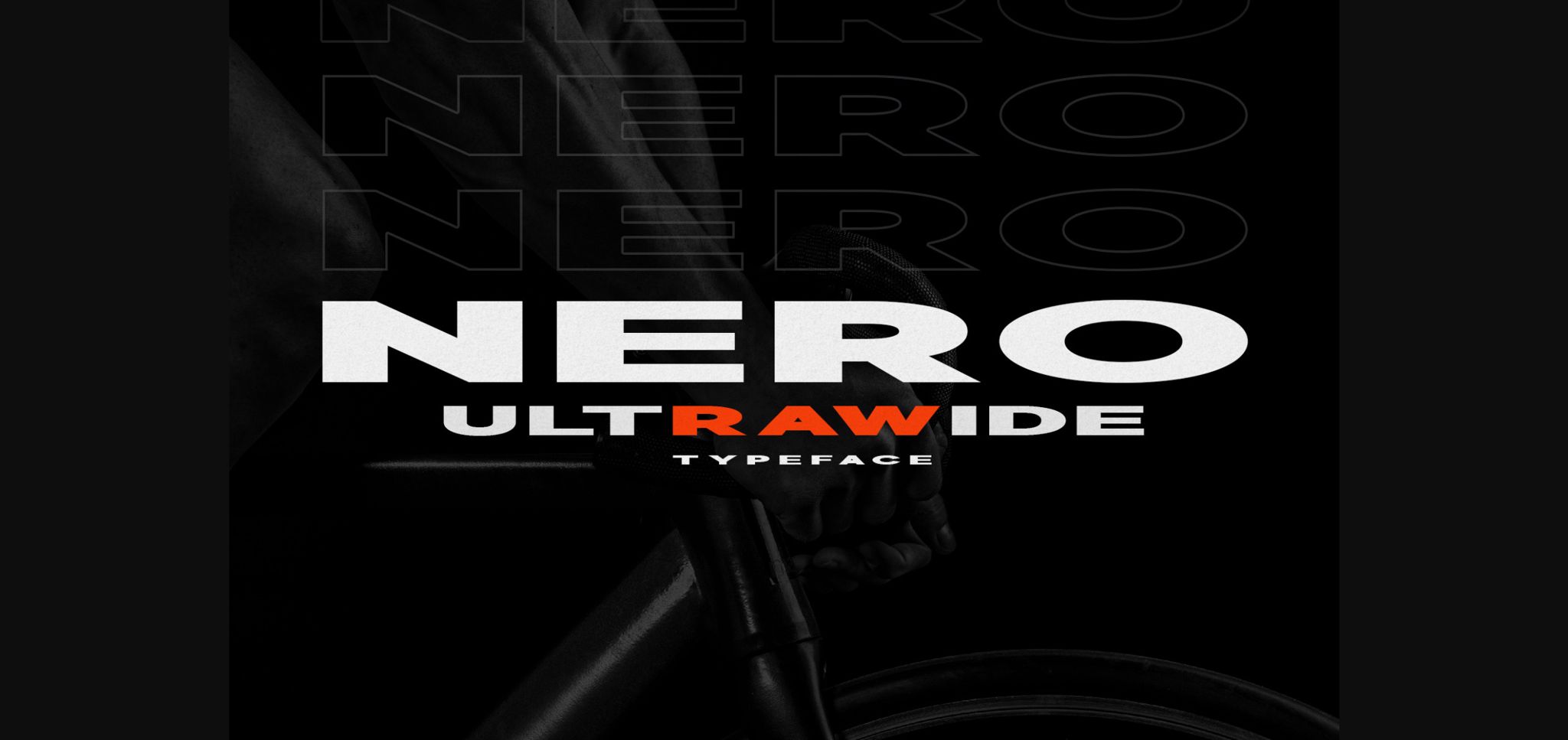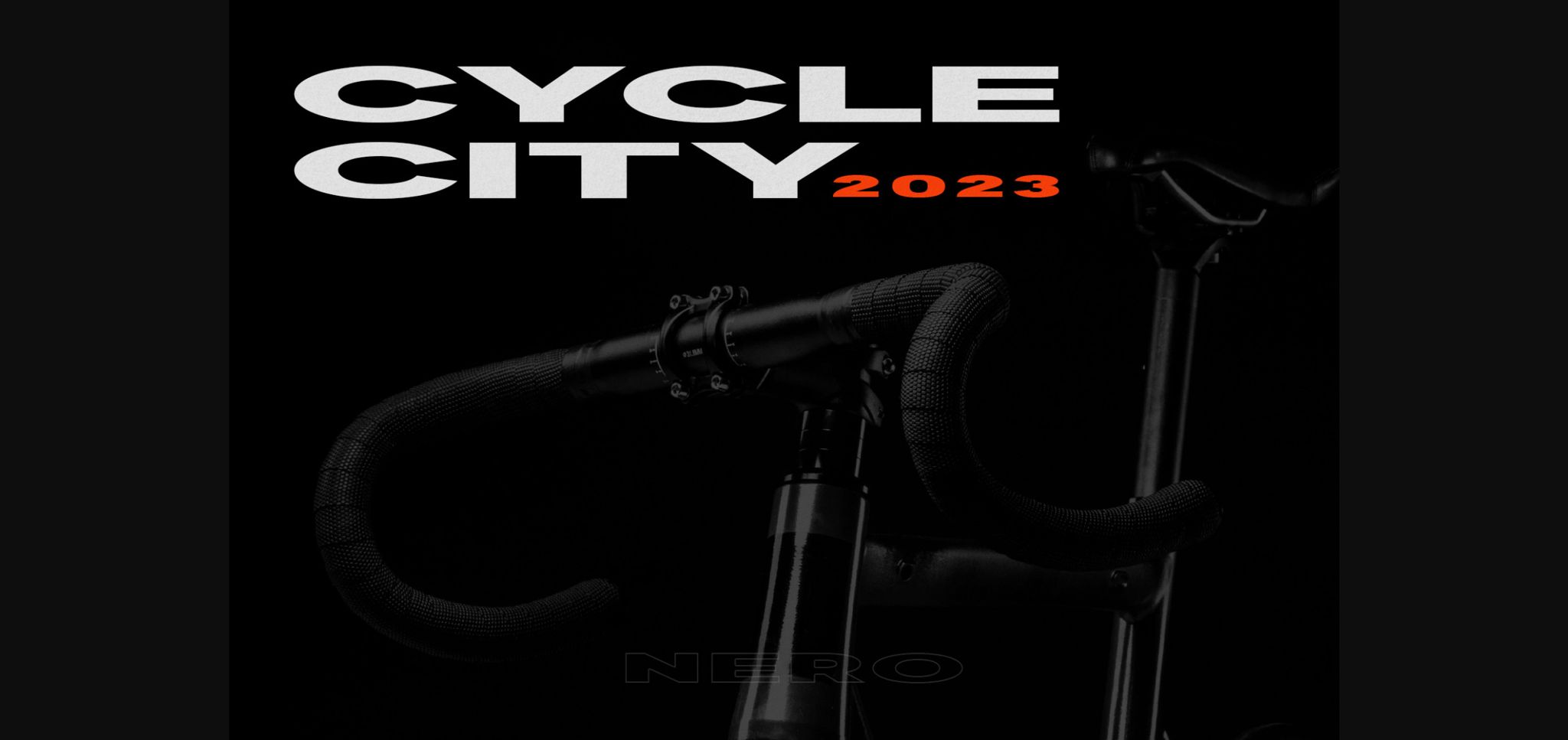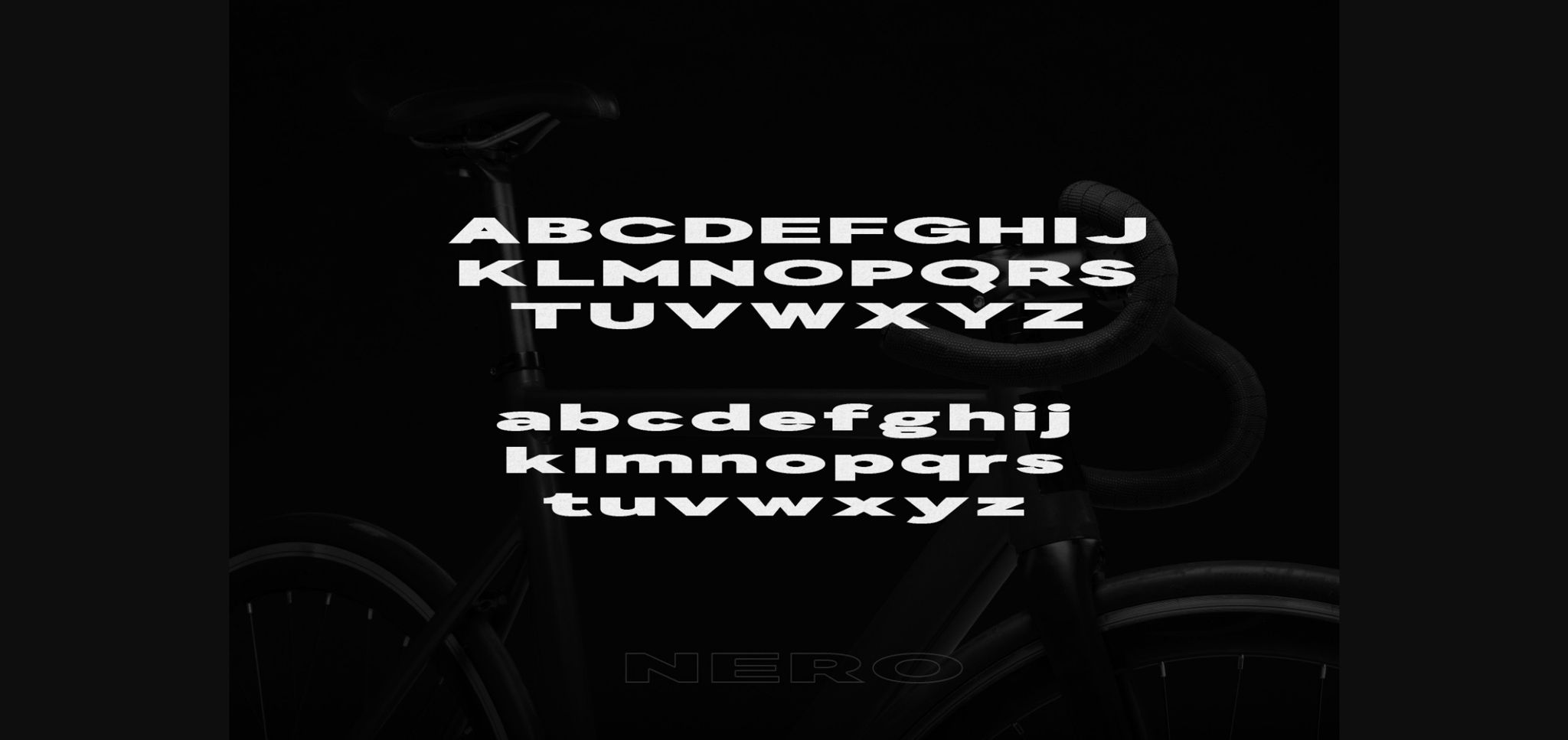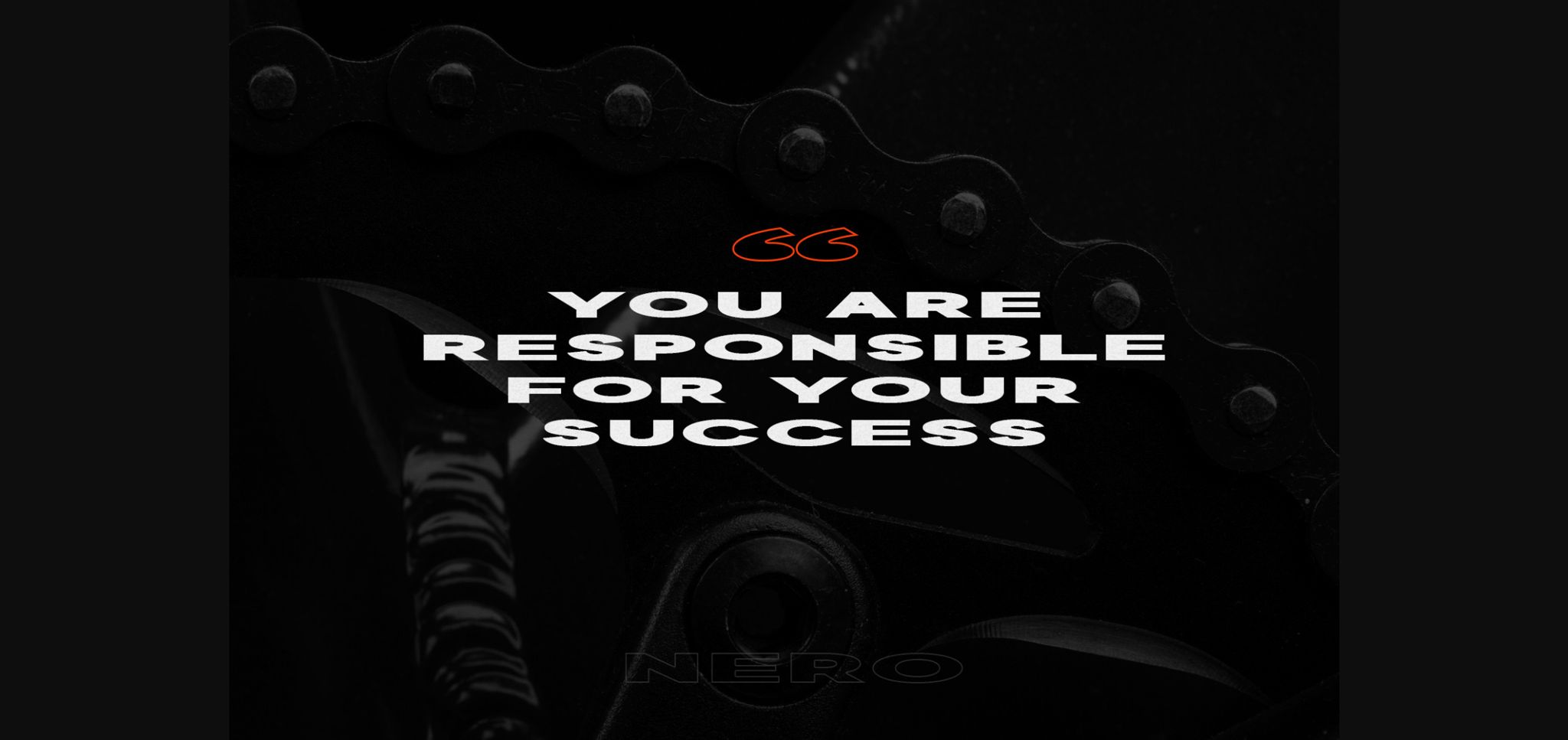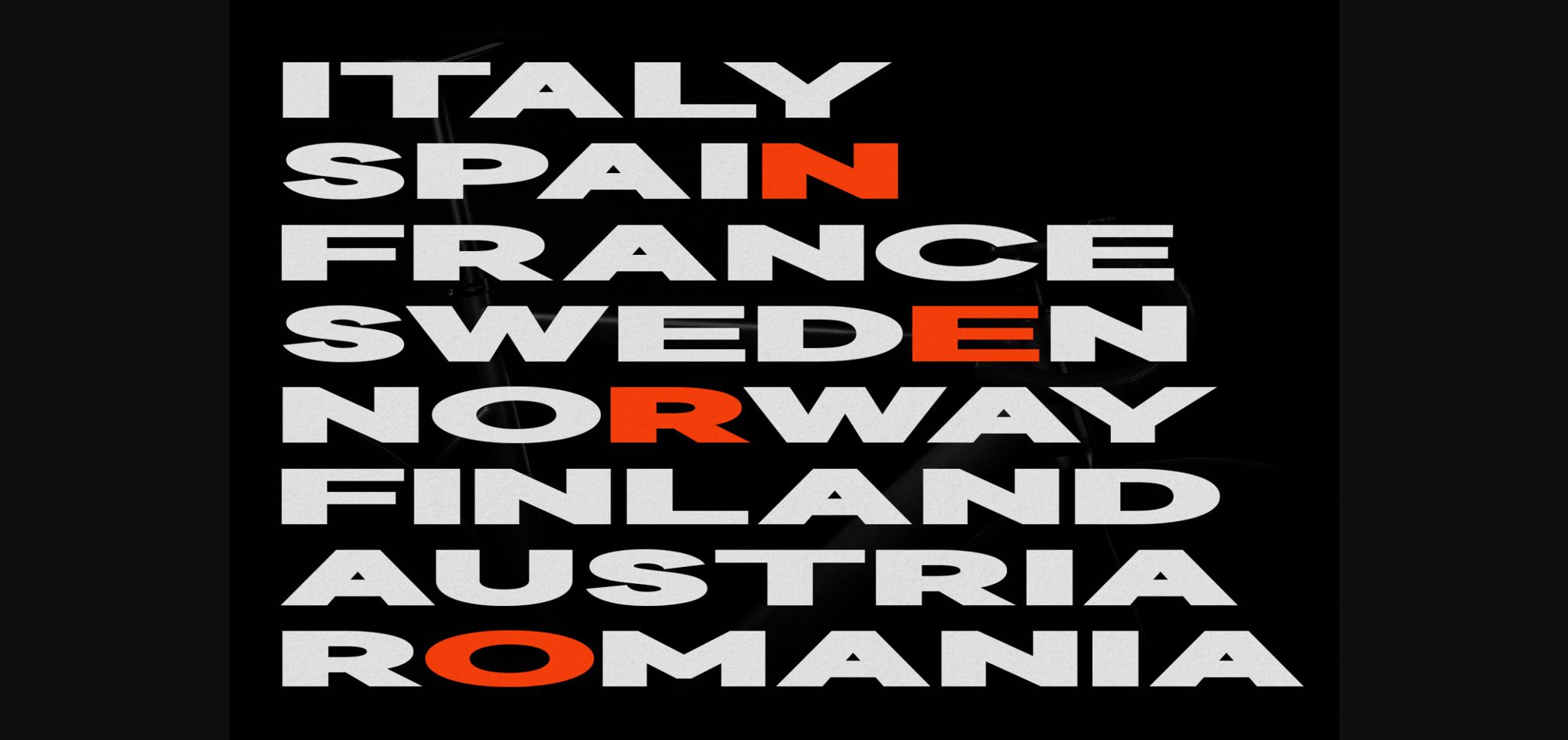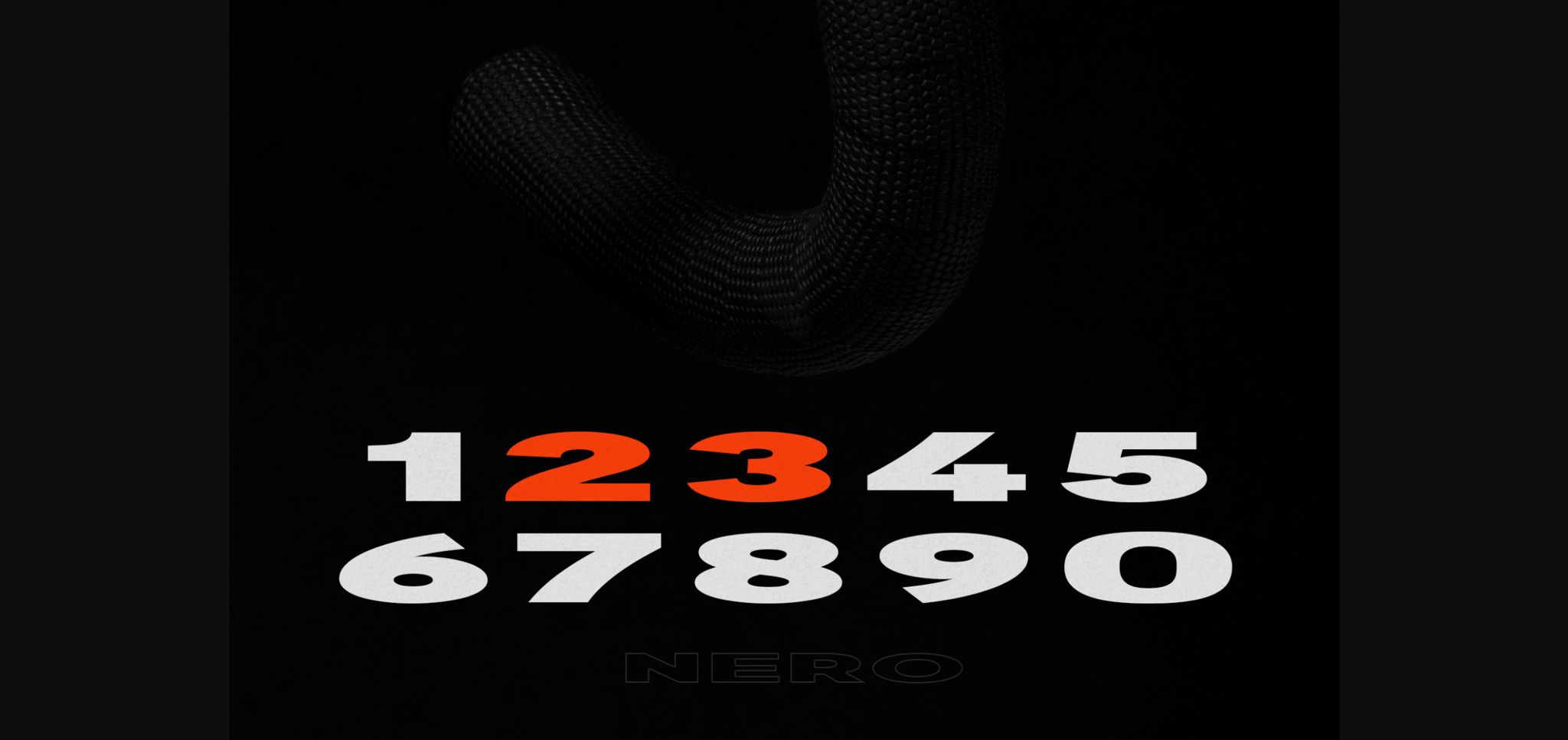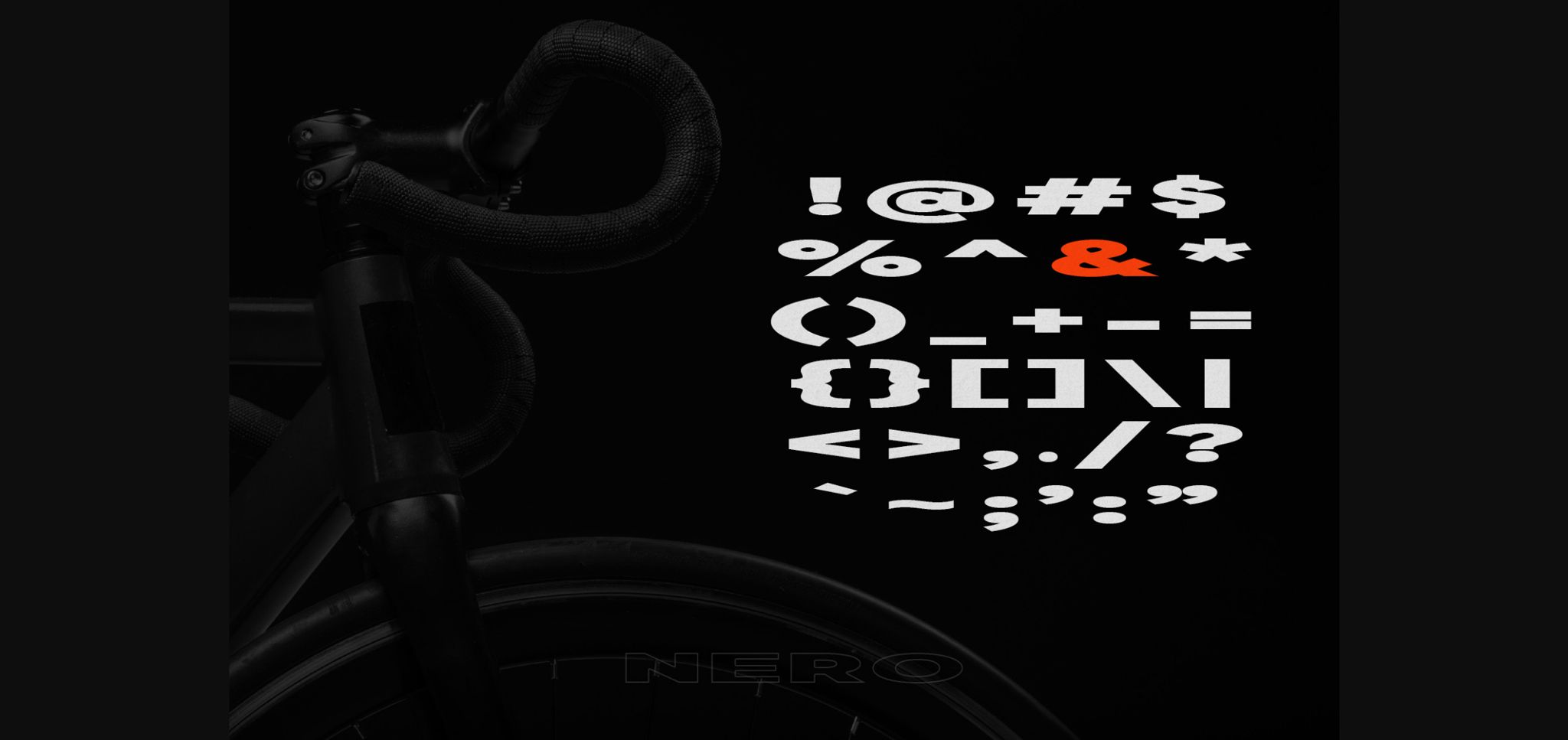
Nero Font
About Nero Font
Nero is an ultra-wide typeface that’s sleek and modern. The font is fairly legible in all sizes but works best when the letters are large. Nero is ideal for packaging, posters, sports, advertising, editorials, social media, Youtube thumbnails, and more. If you’re looking for a stylish new font for your design toolbox, then Nero will make a perfect addition.